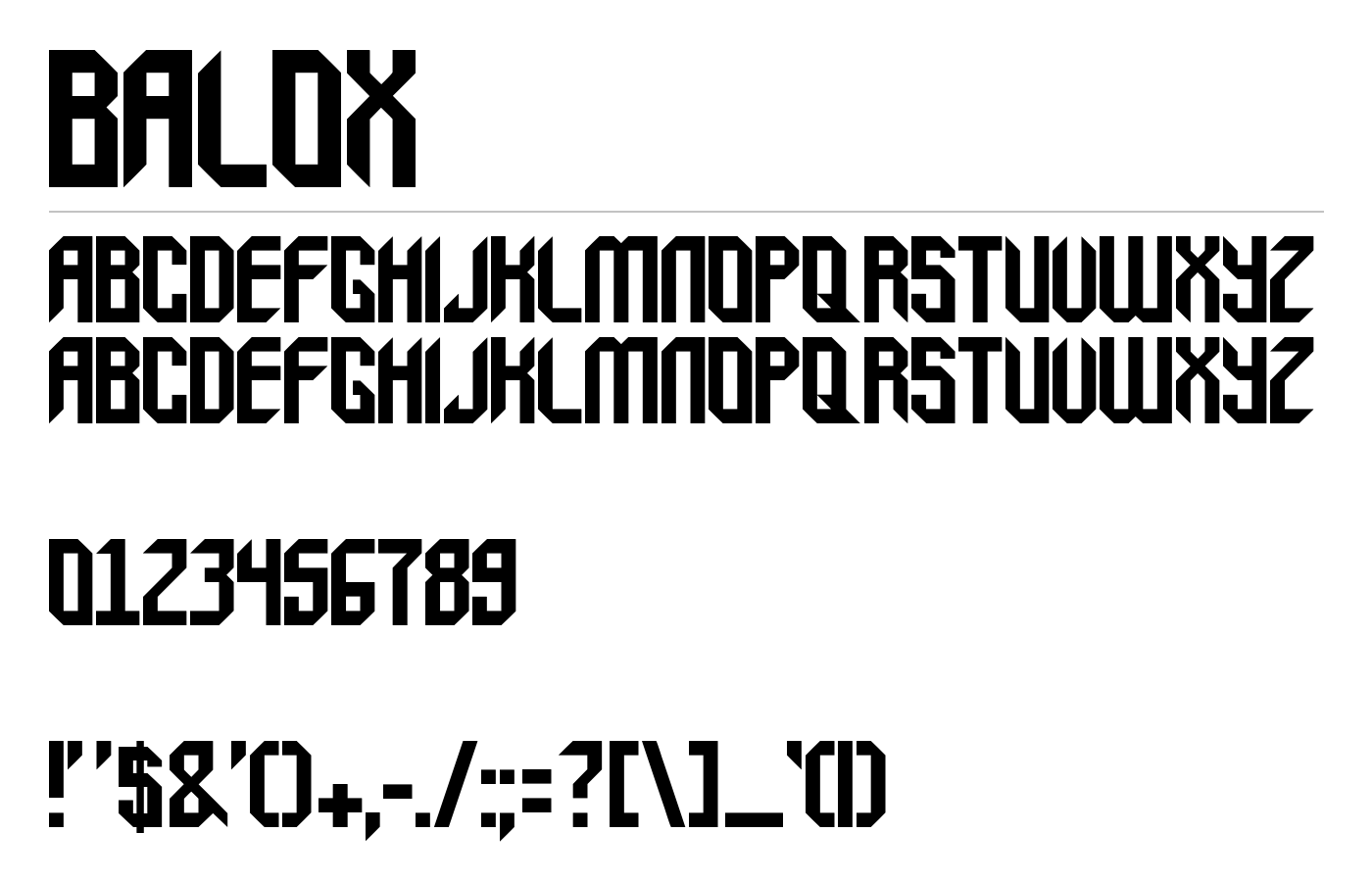
Balox is a bold, condensed sans serif font characterized by its sharp, geometric edges and strong vertical emphasis. Its all-uppercase design combined with angular terminals and high contrast stroke widths make it perfect for striking headlines, logos, and branding that require a modern, edgy, and impactful appearance. This font works especially well in projects aiming for a futuristic or industrial vibe.
Balox Font
About Balox Font
| Font family | Balox Font |
| Designer | Upansulfan |